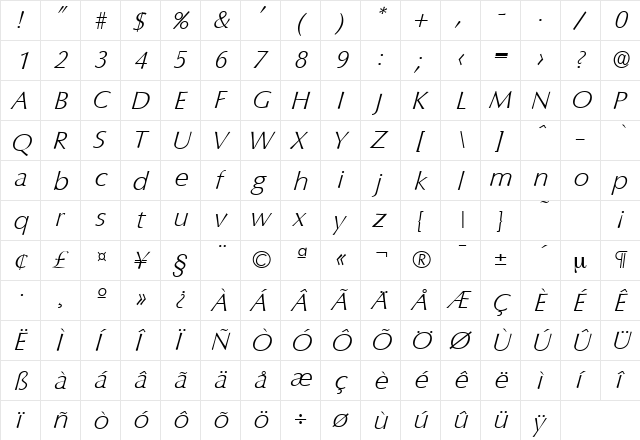
Columbia-Serial-ExtraLight RegularItalic Font Preview
Design Context for Columbia-Serial-ExtraLight Typeface
Columbia-Serial-ExtraLight takes a measured approach to typography — its balanced proportions and neutral character make it a reliable workhorse for both digital and print work. The slanted form adds forward momentum and visual energy. Its slender proportions lend an understated elegance to any composition.